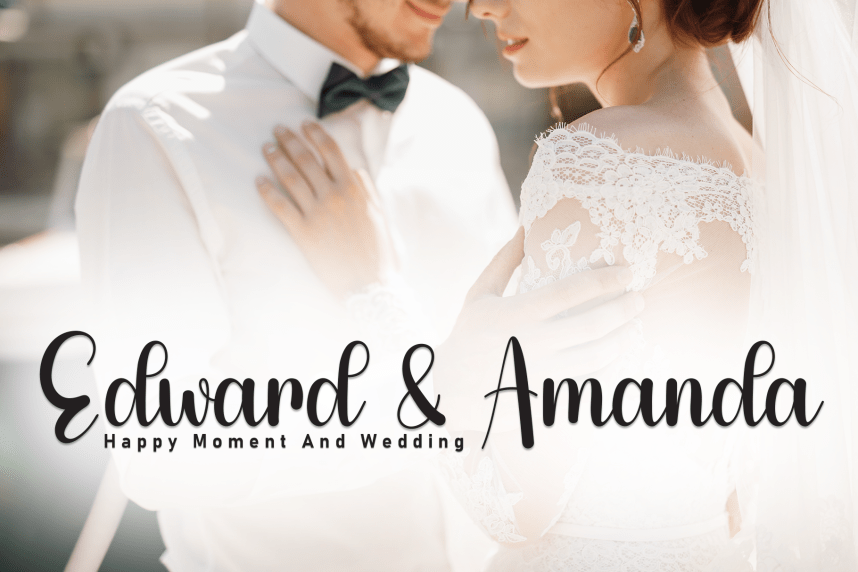
Something – Script Style Font
Something – Script Style Font is a sweet and friendly handwritten display font. Cute and fun, this font is ideal for writing wedding invitations, cards, or any other design that might need a playful touch!